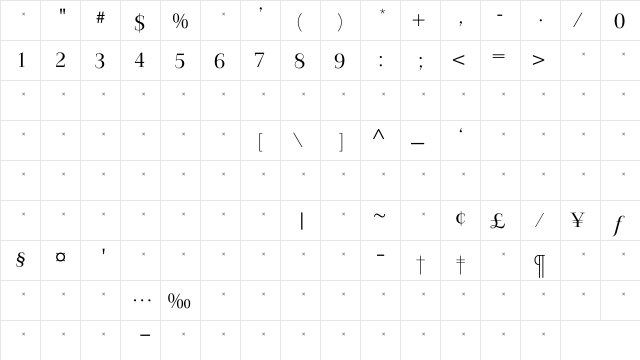
JardineLightTab Regular
JardineLightTab offers clean, dependable letterforms without strong stylistic allegiance, making it a practical choice for designers who need flexibility. Its slender proportions lend an understated elegance to any composition.